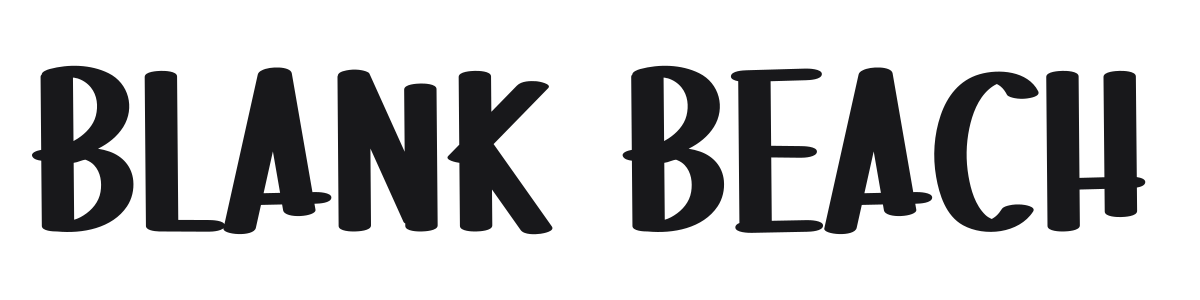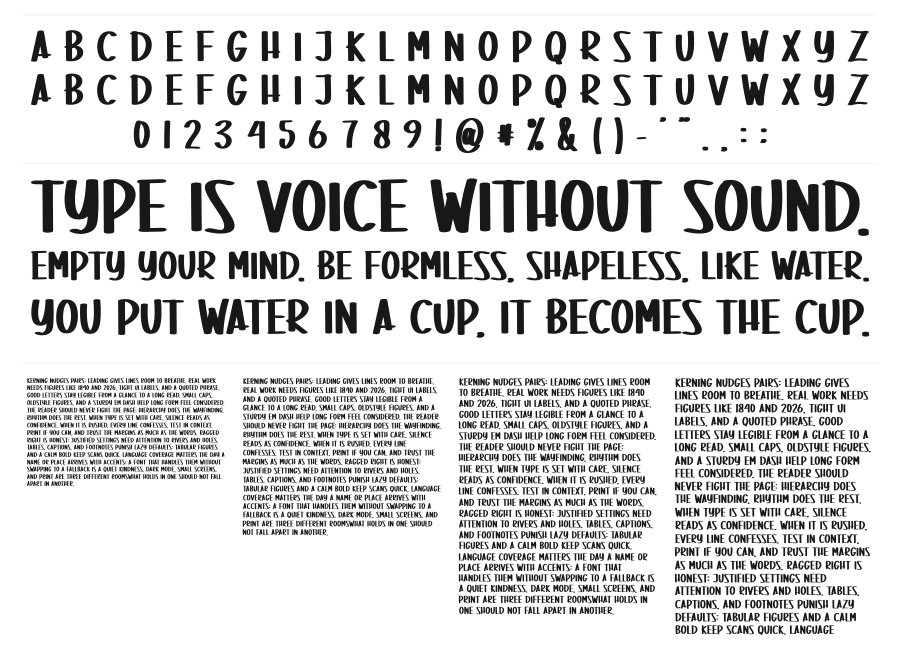
Blank Beach
by creatype designer
Blank Beach is a bold upright display font with strong calligraphic roots and a casual, contemporary energy. The high stroke contrast and slightly irregular edges give it a handcrafted warmth without veering into formal script territory. It works well for titles, branding, and stationery where you want personality without pretension.